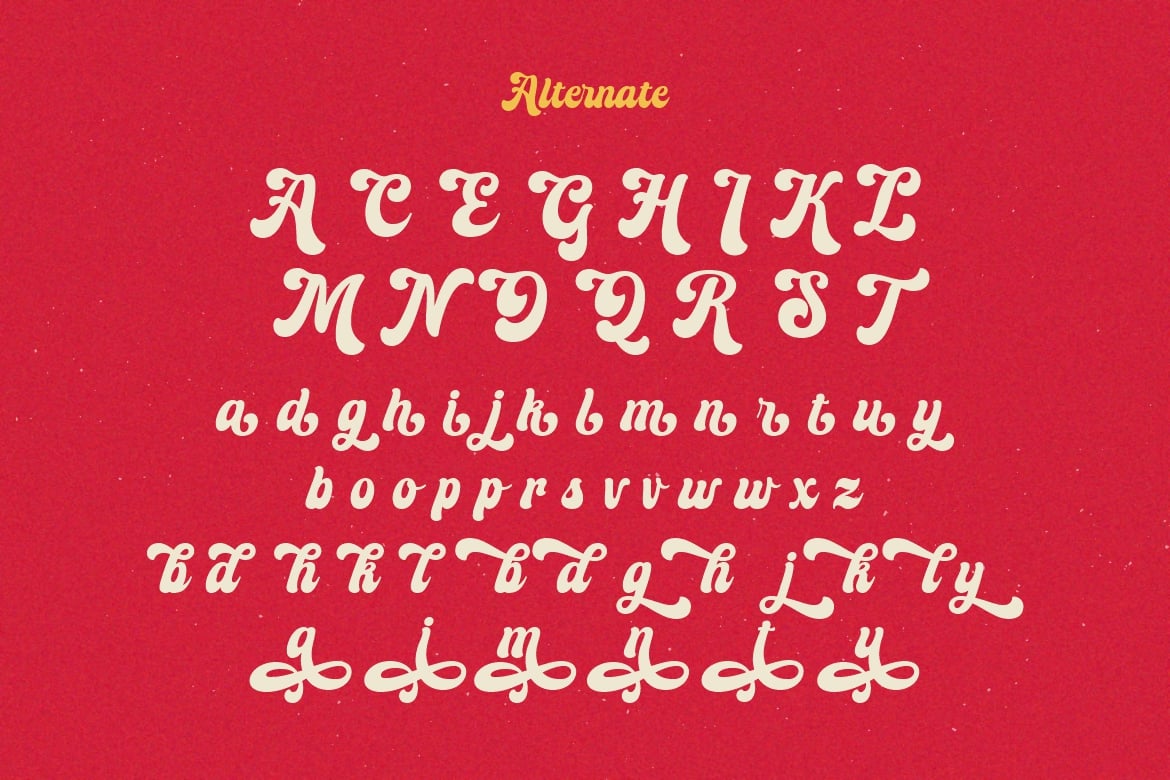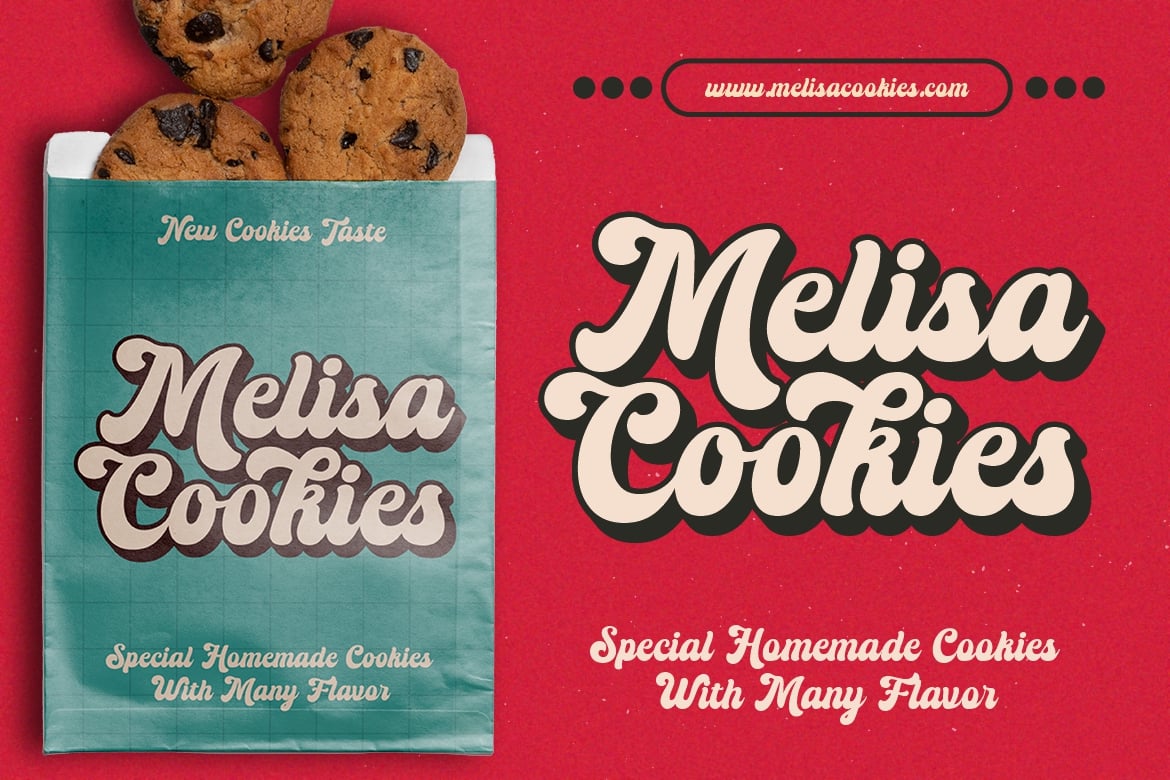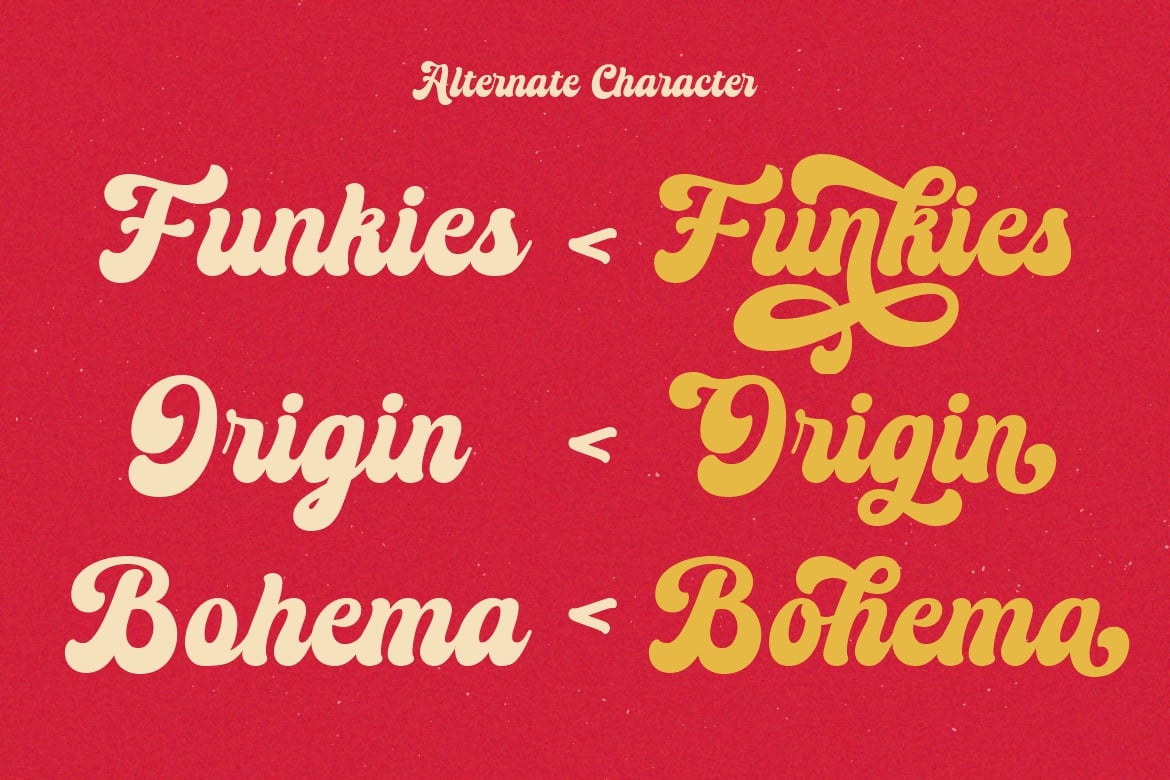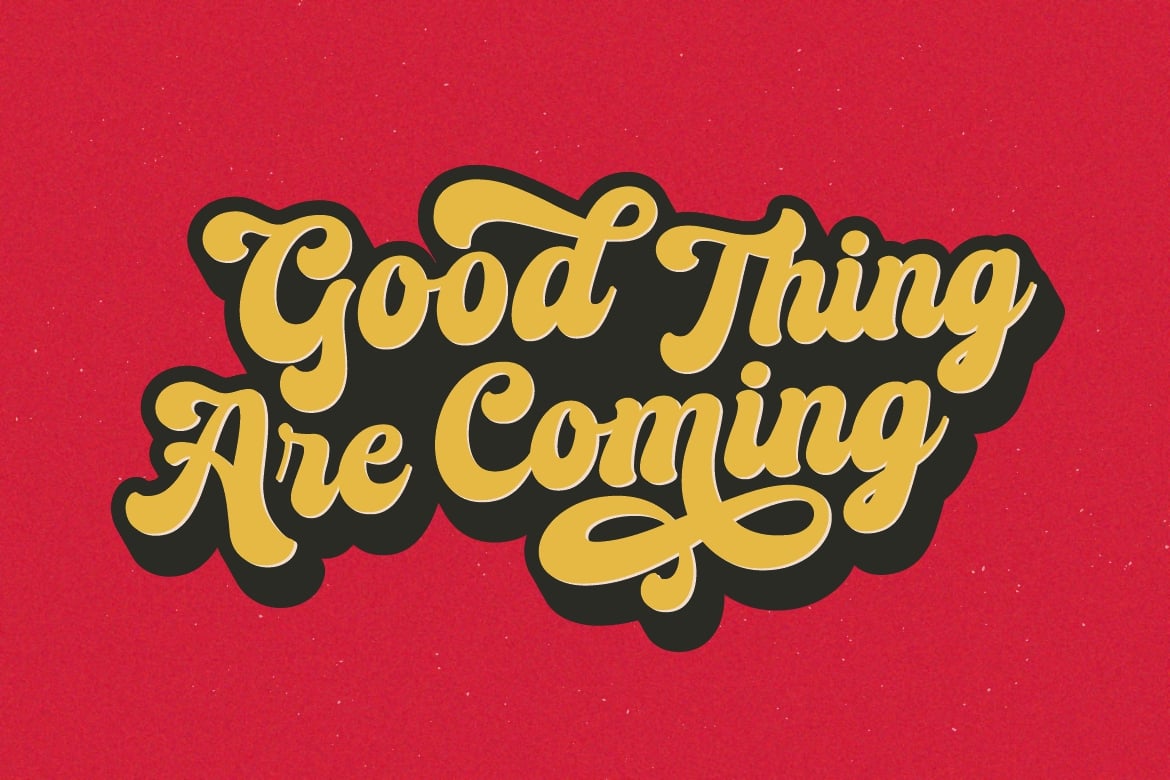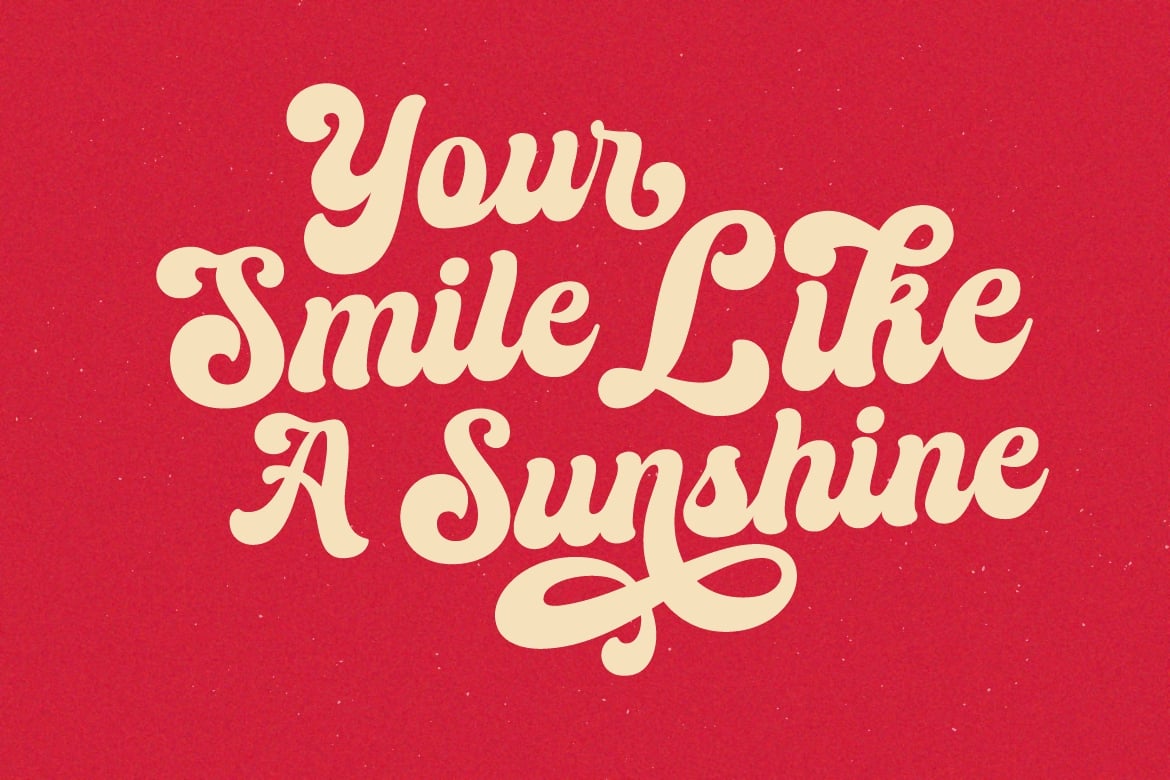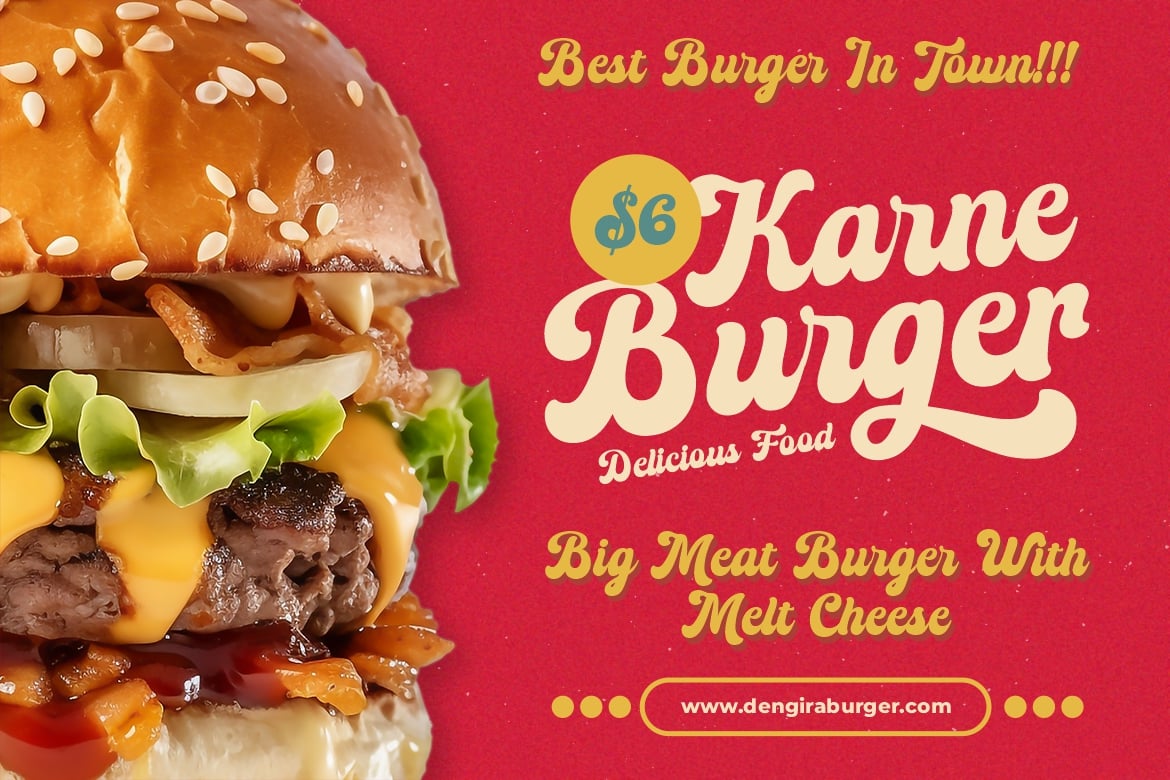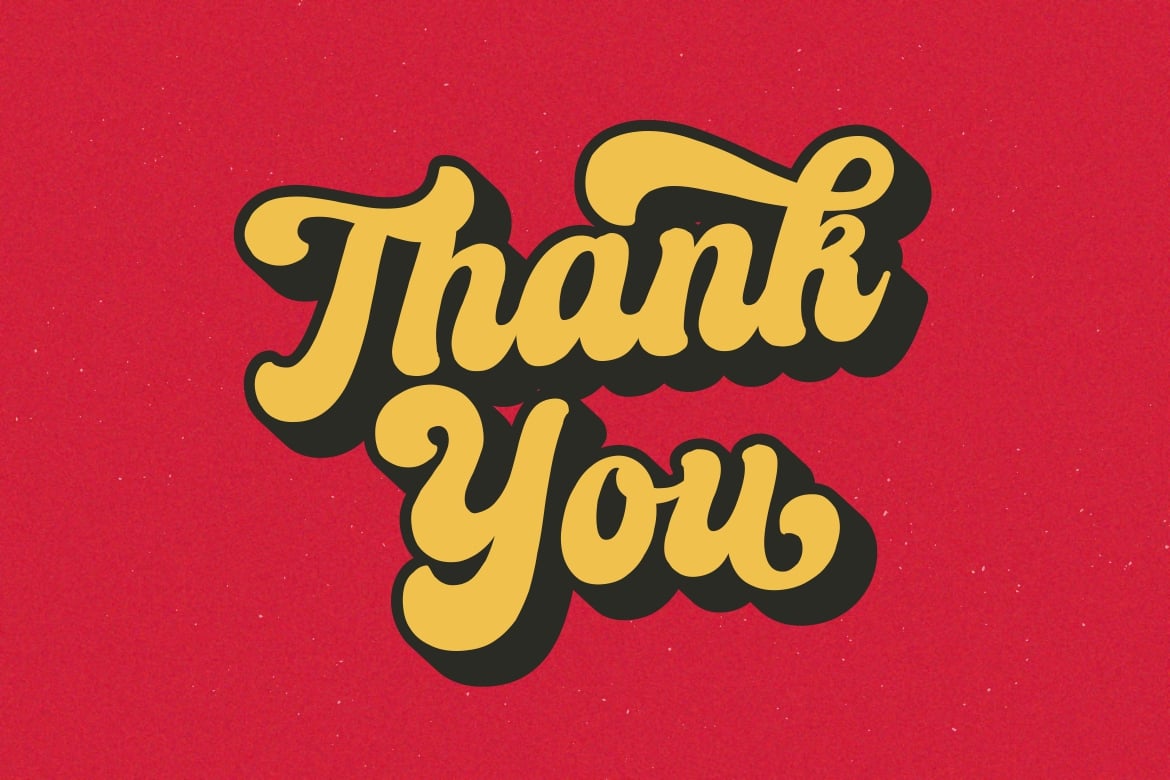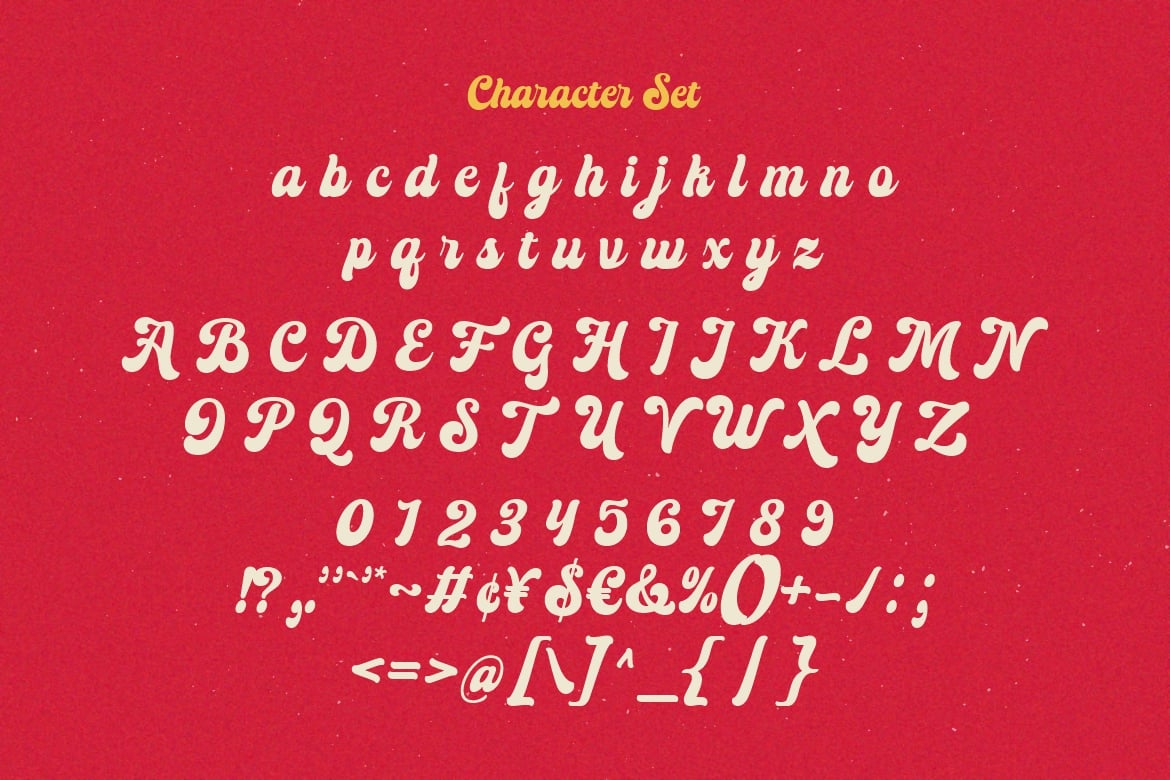
Rushton Font
Rushton is a lettering retro vintage font. You will get alternate characters such as swash on some characters. Equipped with all complete characters ranging from uppercase letters, lowercase letters, numbers, punctuation marks and multi-lingual support, this font is ready to be used in any project. Very suitable for logotype, Stickers, Packaging design, Cricut Project, Headlines, Brand identity, Posters, Magazines, Books, YouTube, Instagram, Websites, Canva, Corjl or any of your creative design projects. Use this Rushton font to add that special modern retro touch to any design idea you can think of!
- Alternate Character